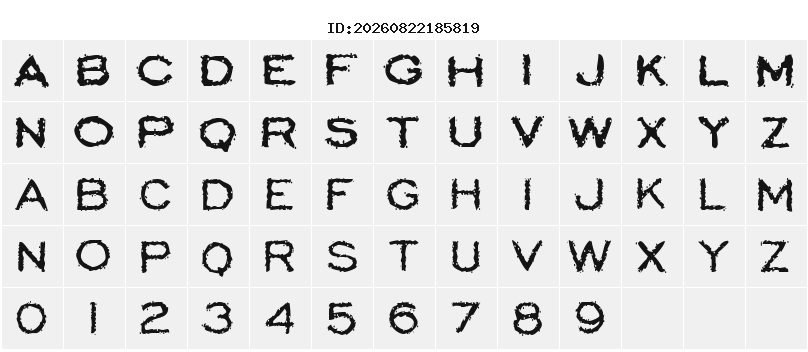
Scatterbrained Restrained Preview
• Font Name: Scatterbrained Restrained
• Full Font Name: Scatterbrained Restrained
• PostScript Name: ScatterbrainedRestrained
About Scatterbrained Restrained.ttf
Scatterbrained Restrained.ttf is a modern, elegant sans-serif font designed for ultimate readability and visual harmony. Perfect for branding, headlines, web design, and print materials.